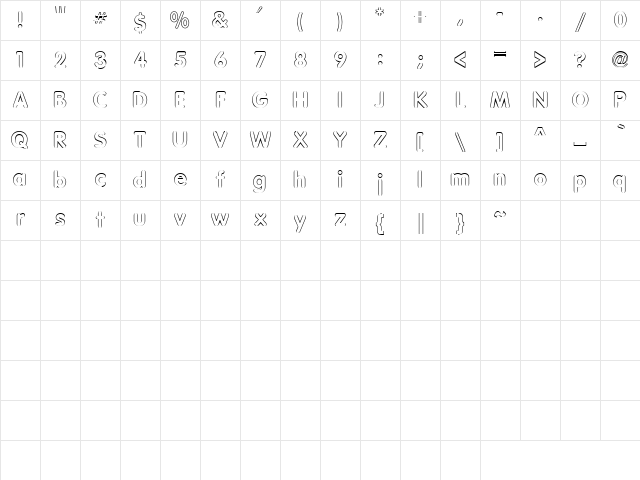
Round & Neat 1 softens its letterforms with rounded terminals, giving it an approachable, friendly quality that works well in consumer-facing and digital contexts.
Font Pairing: Pairs well with a rounded or humanist sans for body copy, maintaining the friendly tone without relying on Round & Neat 1 to carry extended reading.
Pro Tip: Use Round & Neat 1 for UI elements, app interfaces, and anywhere a friendly, approachable tone needs to be maintained without sacrificing clarity.